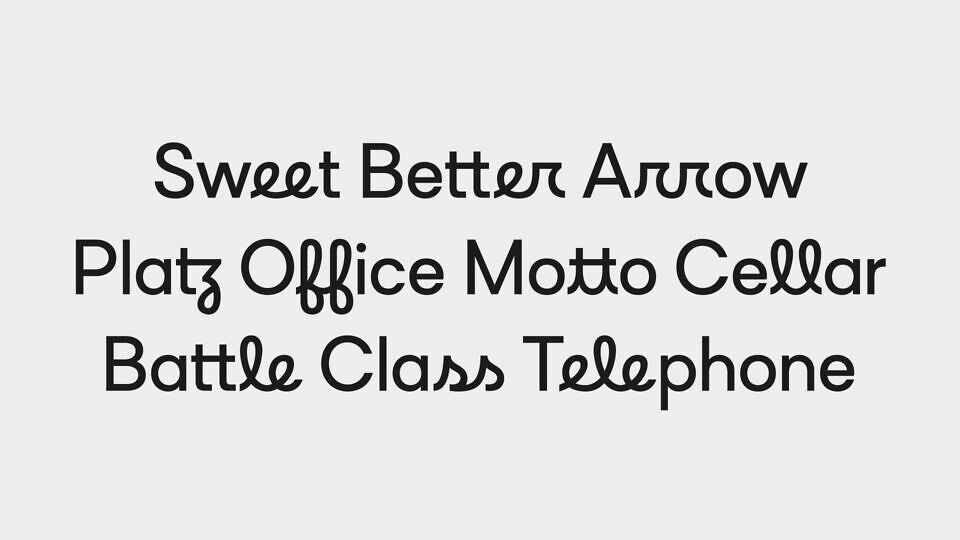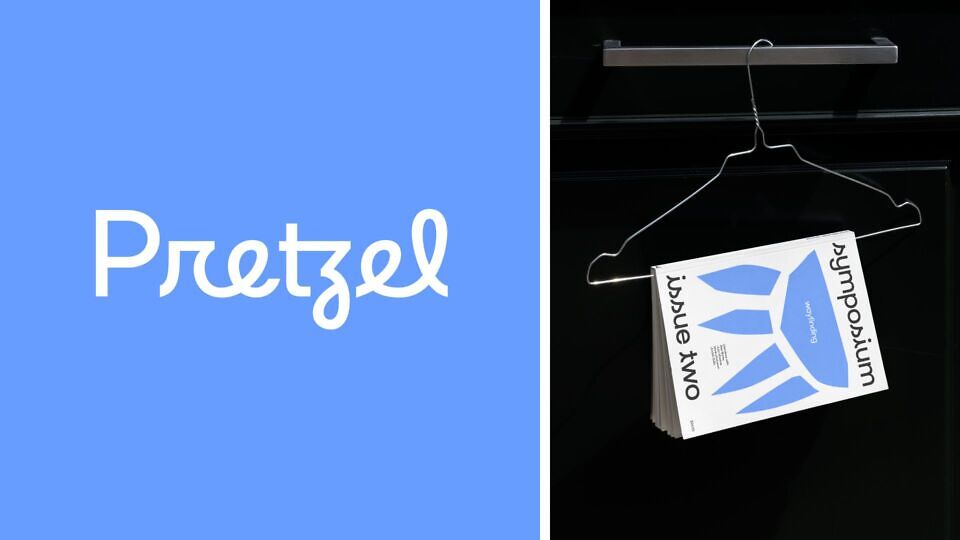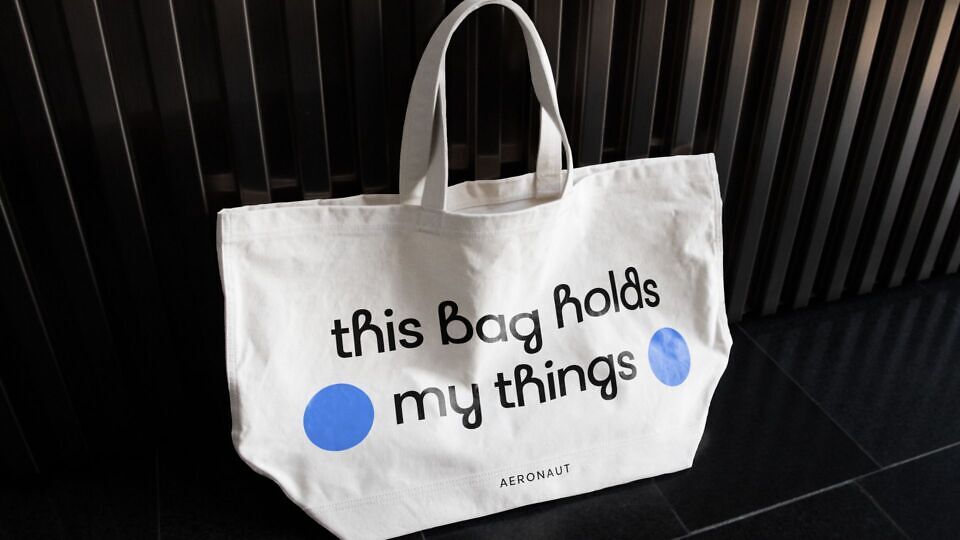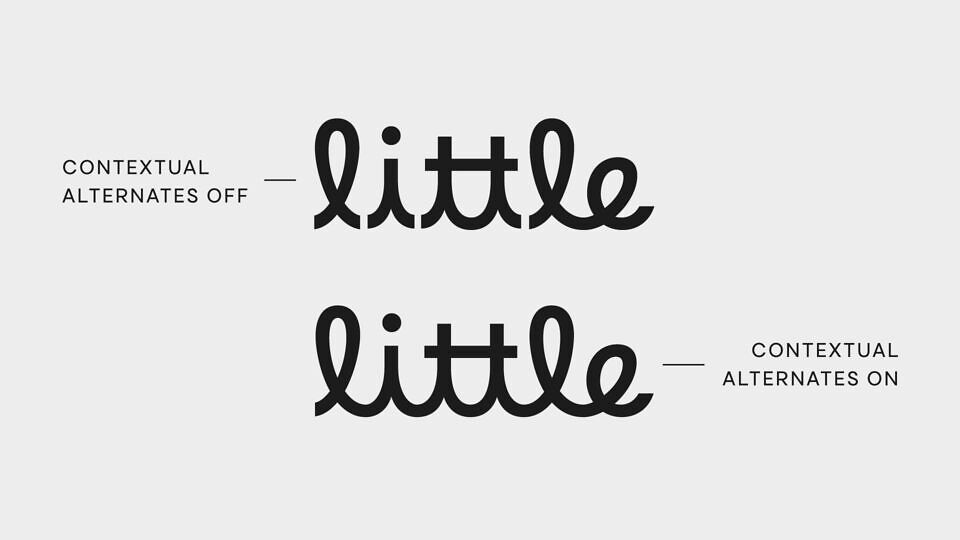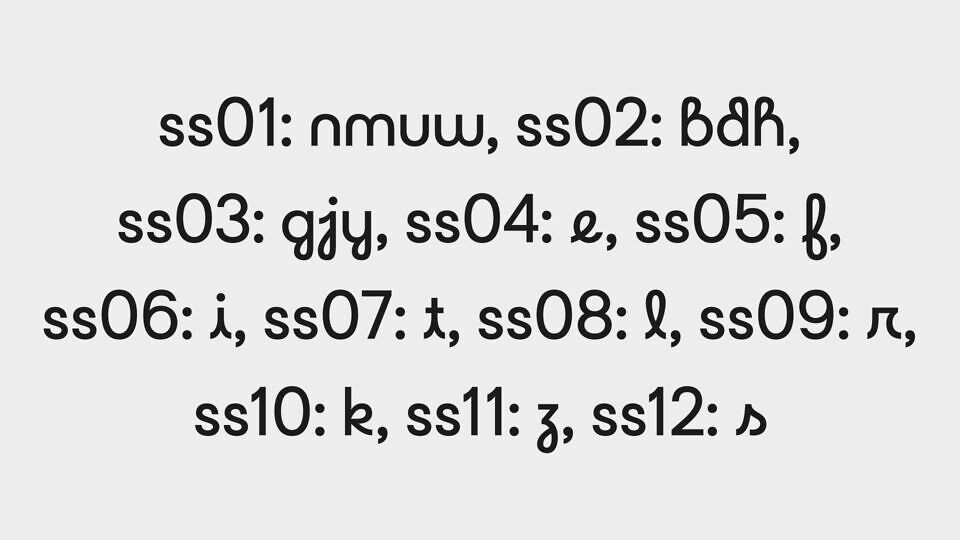
Aeronaut merges the sincerity of a geometric sans with the playfulness of a script. A wide array of stylistic alternates allows you to tailor the look of your design with precision.